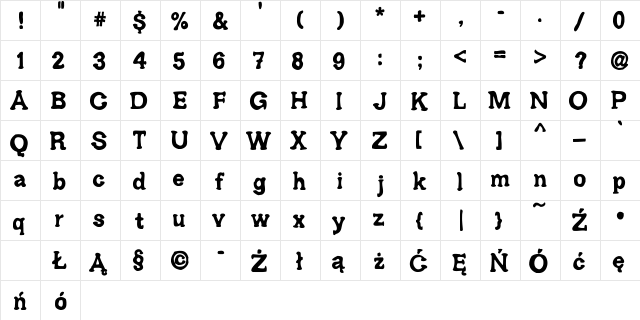
Ariendezze Regular
Design Context for Ariendezze Typeface
Ariendezze is a composed and adaptable typeface that performs quietly and consistently across a wide range of design contexts.